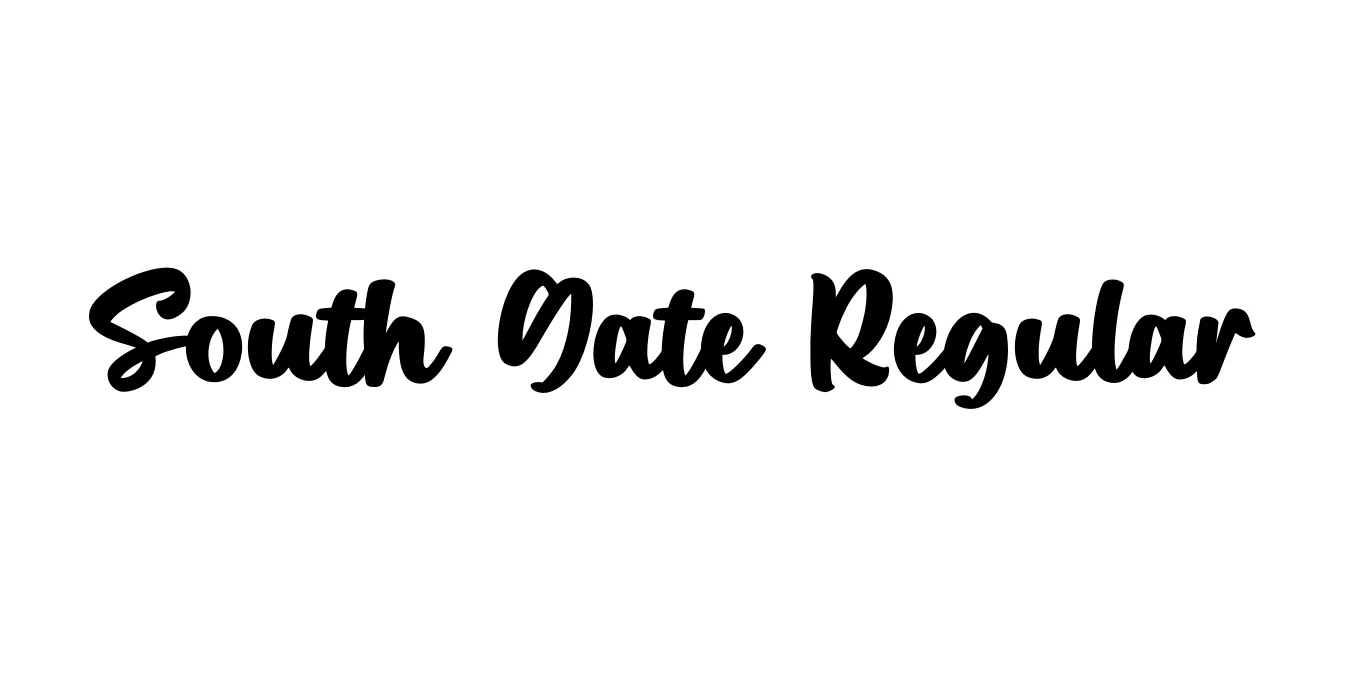
South Gate Regular
Designed by Maulana Creative
| Font Name | South Gate |
| Designer | Maulana Creative |
South Gate Regular is an elegant and fluid script typeface designed to bring a touch of sophisticated hand-lettering to any project. Developed by Maulana Creative, this font features a balanced rhythm of strokes that emulate the natural movement of a calligraphy pen, providing a personalized and warm aesthetic. Its contemporary style makes it highly adaptable for modern design needs while retaining a classic sense of elegance.
Since its introduction, South Gate Regular has gained popularity for its versatility in high-end branding and marketing materials. It is particularly effective for luxury packaging, editorial layouts, and digital content where a human touch is required. The font includes various ligatures and swashes that allow designers to create unique, custom-looking typography for both print and web applications.
South Gate Regular Best Uses
Perfect for invitations, RSVP cards, and elegant place settings.
Ideal for creating sophisticated logos and professional personal brand identities.
Excellent for overlays on visual content, quotes, and stylish Instagram stories.
Adds a premium, artisanal feel to cosmetics, fashion, and luxury goods.